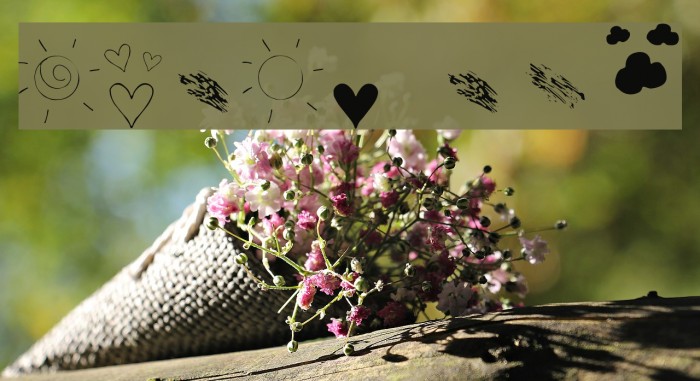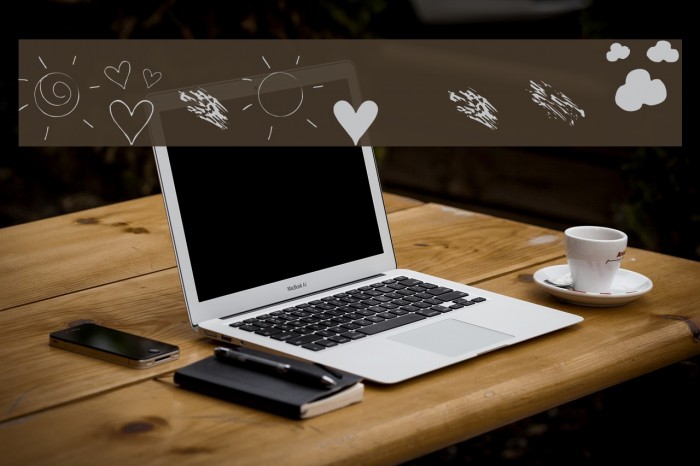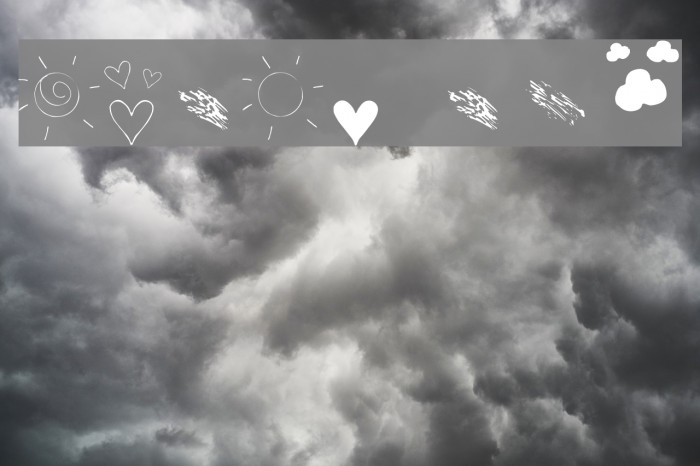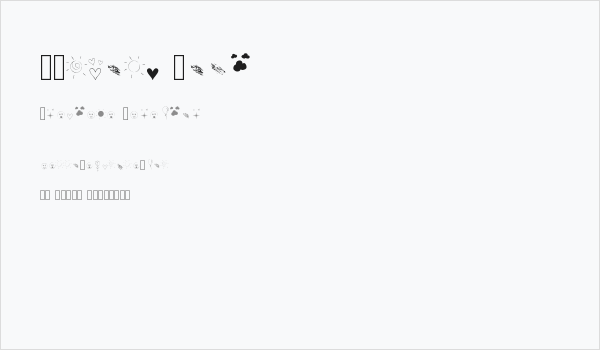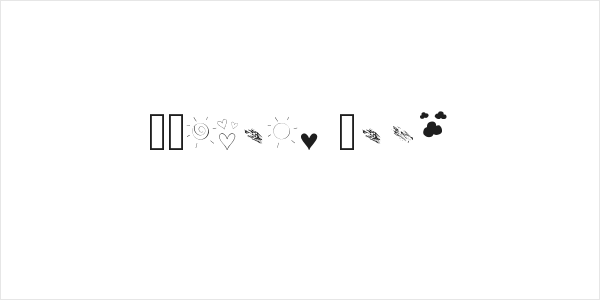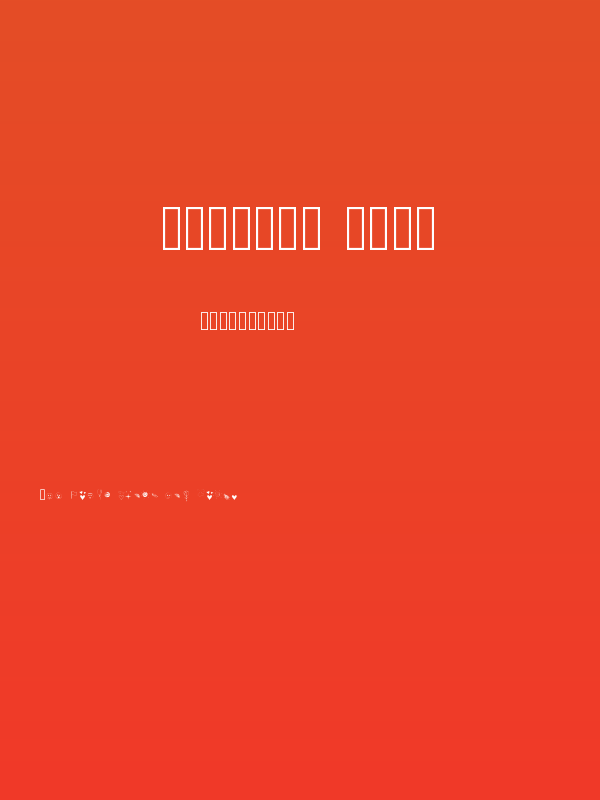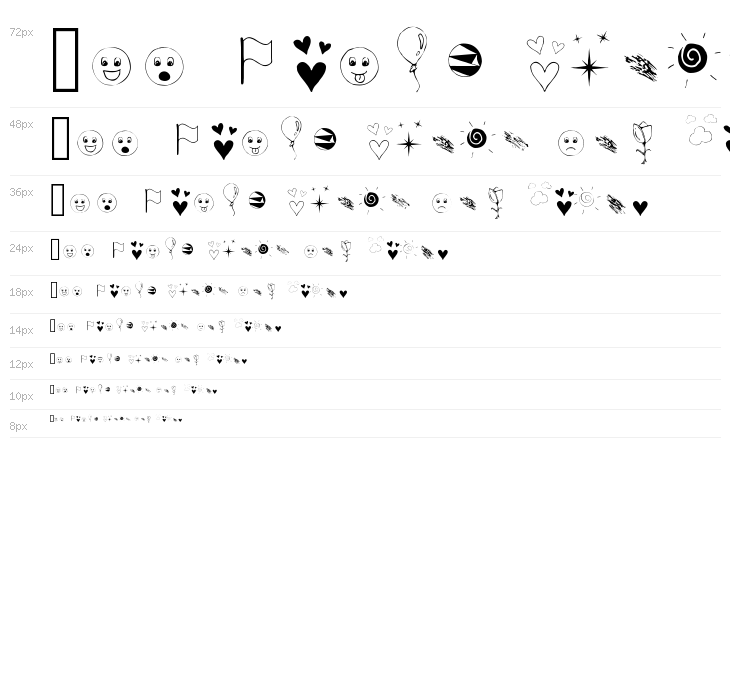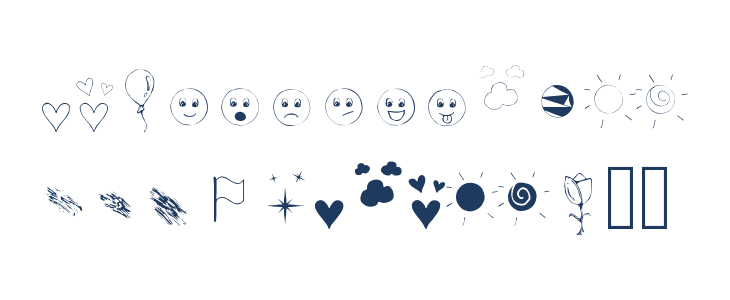
Symbols Font Font
Symbols Font Description
This collection features a playful and whimsical set of symbols and icons, including hearts, balloons, various emotive faces, clouds, suns, and abstract shapes. The designs are simple yet expressive, with clean lines and a hand-drawn aesthetic that adds a personal touch. The symbols are versatile, suitable for a range of creative projects where a lighthearted and fun vibe is desired. The set includes a variety of emotions and themes, making it ideal for conveying different moods and messages.
| Use Case | Decorative elements, Illustrations, Social media graphics |
| Proposed Projects | Ideal for greeting cards, children's books, playful branding, social media graphics, and DIY crafts. |